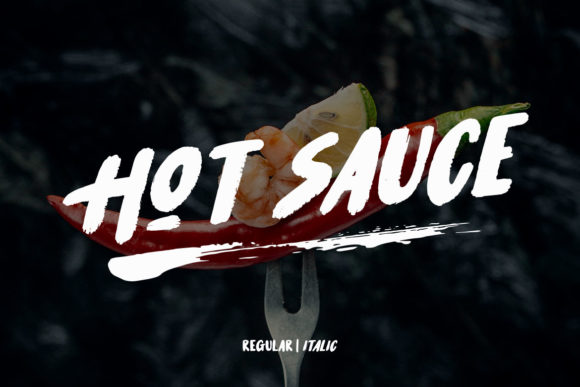
Prepare to let your designs sizzle with the Hot Sauce Font, a brush-style display font that's bursting with personality and heat! Crafted by the talented Dikas Studio, Hot Sauce is a fiery blend of boldness and elegance, bringing a unique flavor to your creative projects.
This display font family is like a culinary delight for your designs, adding a dash of spice and intrigue to any project you tackle. Its bold strokes and dynamic curves captivate attention, making it an ideal choice for logos, posters, branding, or any occasion where you want your words to pack a punch.
Hot Sauce isn't just another font; it's a statement piece that commands attention. Unleash your creativity and let this font ignite your passion for design. Elevate your projects to new heights of awesomeness, and let your designs leave a lasting impression that lingers like the smoky aftertaste of a perfectly grilled steak.
Whether you're a seasoned designer or just starting out, Hot Sauce will add a spark to your design arsenal. With its versatility, this font is your secret ingredient to creating projects that are impossible to ignore. Experience the thrill of bringing your vision to life with a font that's as bold and flavorful as your imagination.
Don't let your designs be bland and boring. Add a dash of Hot Sauce and watch your creativity explode! Your audience will savor every word, every letter, every design you create with this remarkable font. Hot Sauce is more than just a font—it's a taste of greatness that will leave your audience hungry for more.